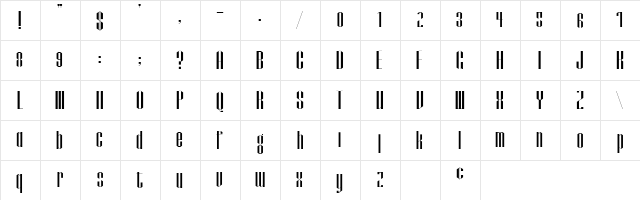
Papercut Regular
Design Context for Papercut Typeface
Papercut offers clean, dependable letterforms without strong stylistic allegiance, making it a practical choice for designers who need flexibility.